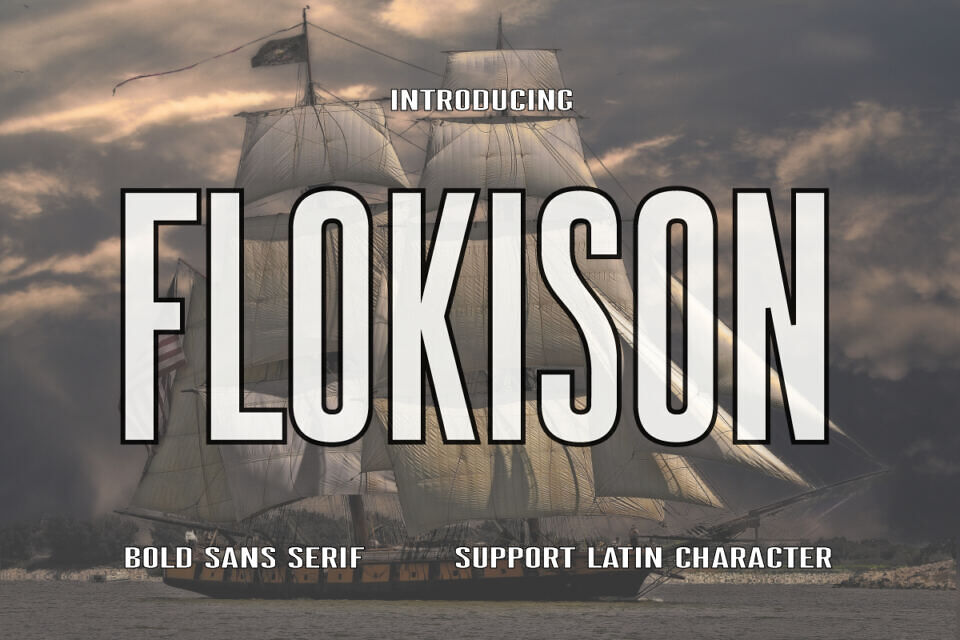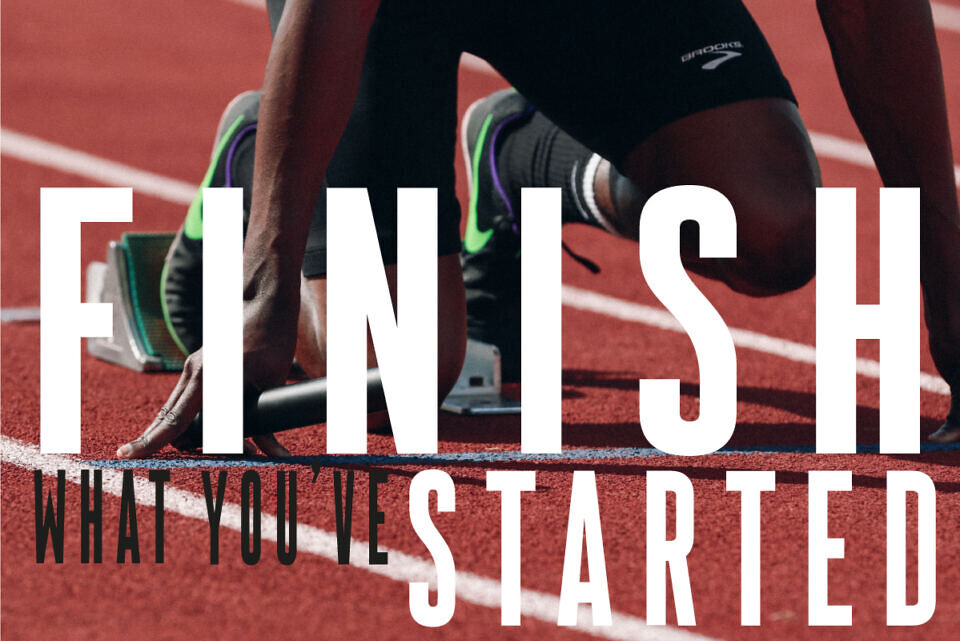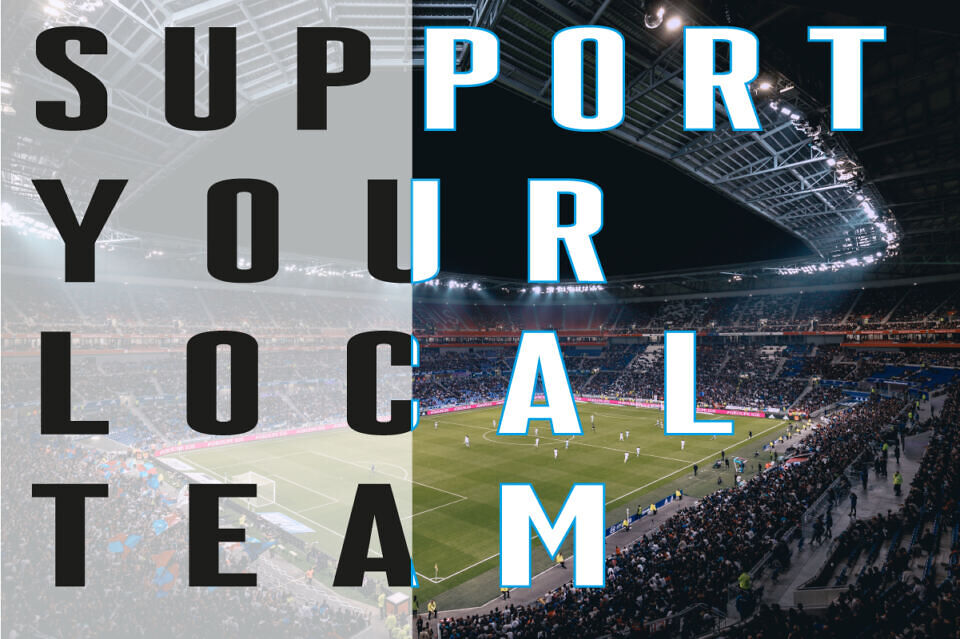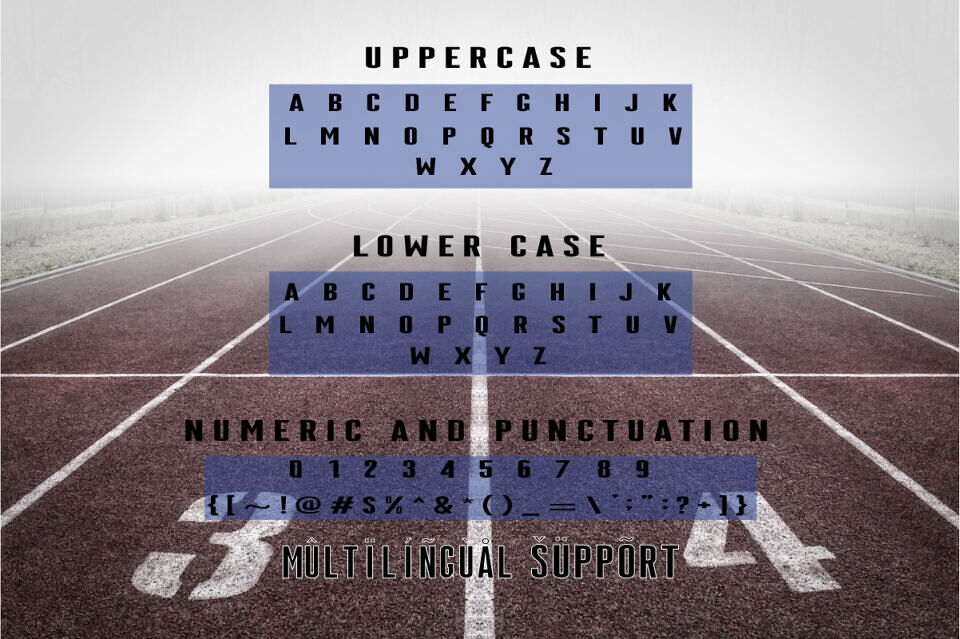
Flokison is an attractive and modern sans-serif font that brings a clean and sleek look to any design. With its balanced condensed proportions and sharp edges, this font is perfect for creating a professional and contemporary feel. Ideal for branding, advertising, and other designs that require a clean and attractive font.